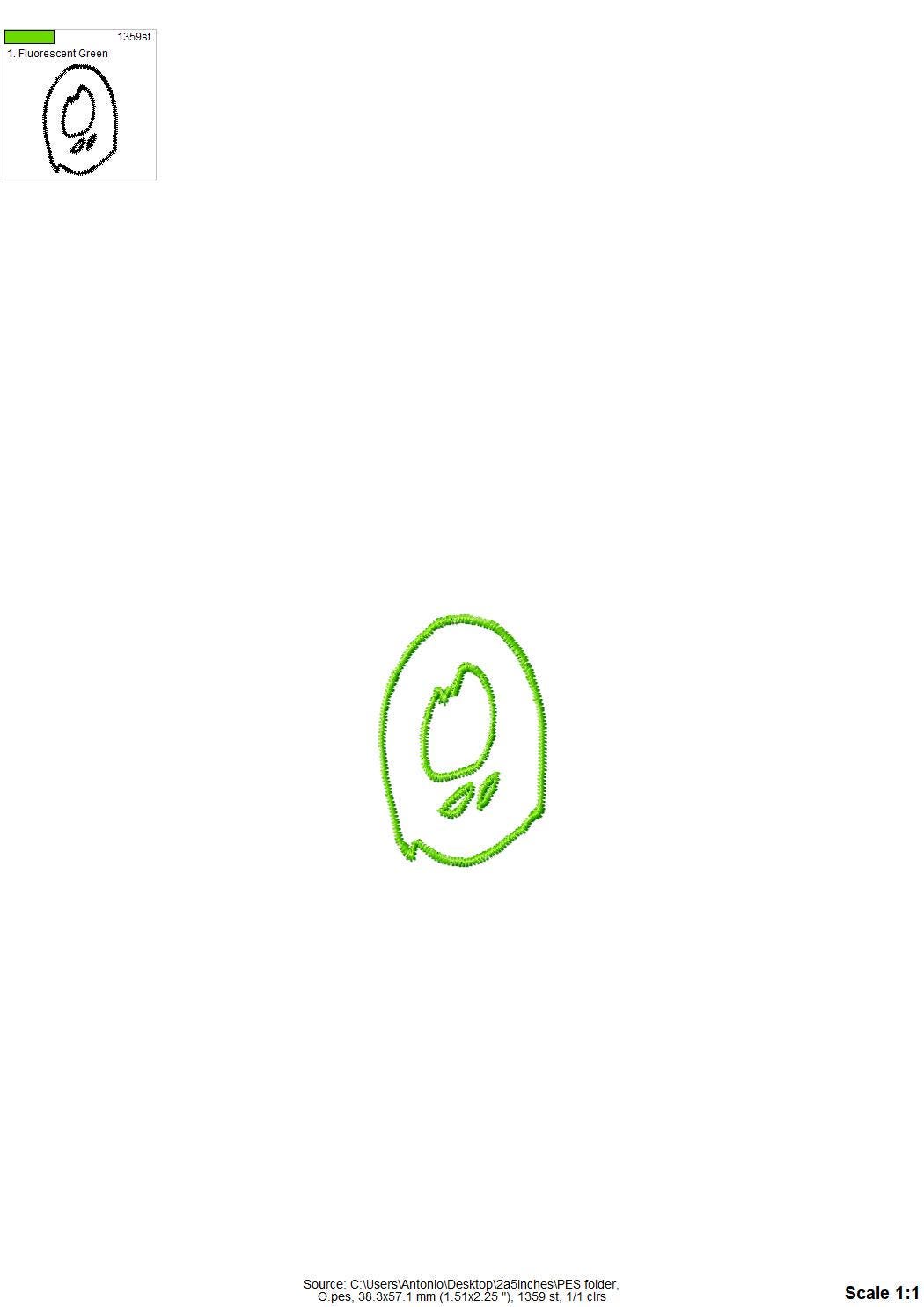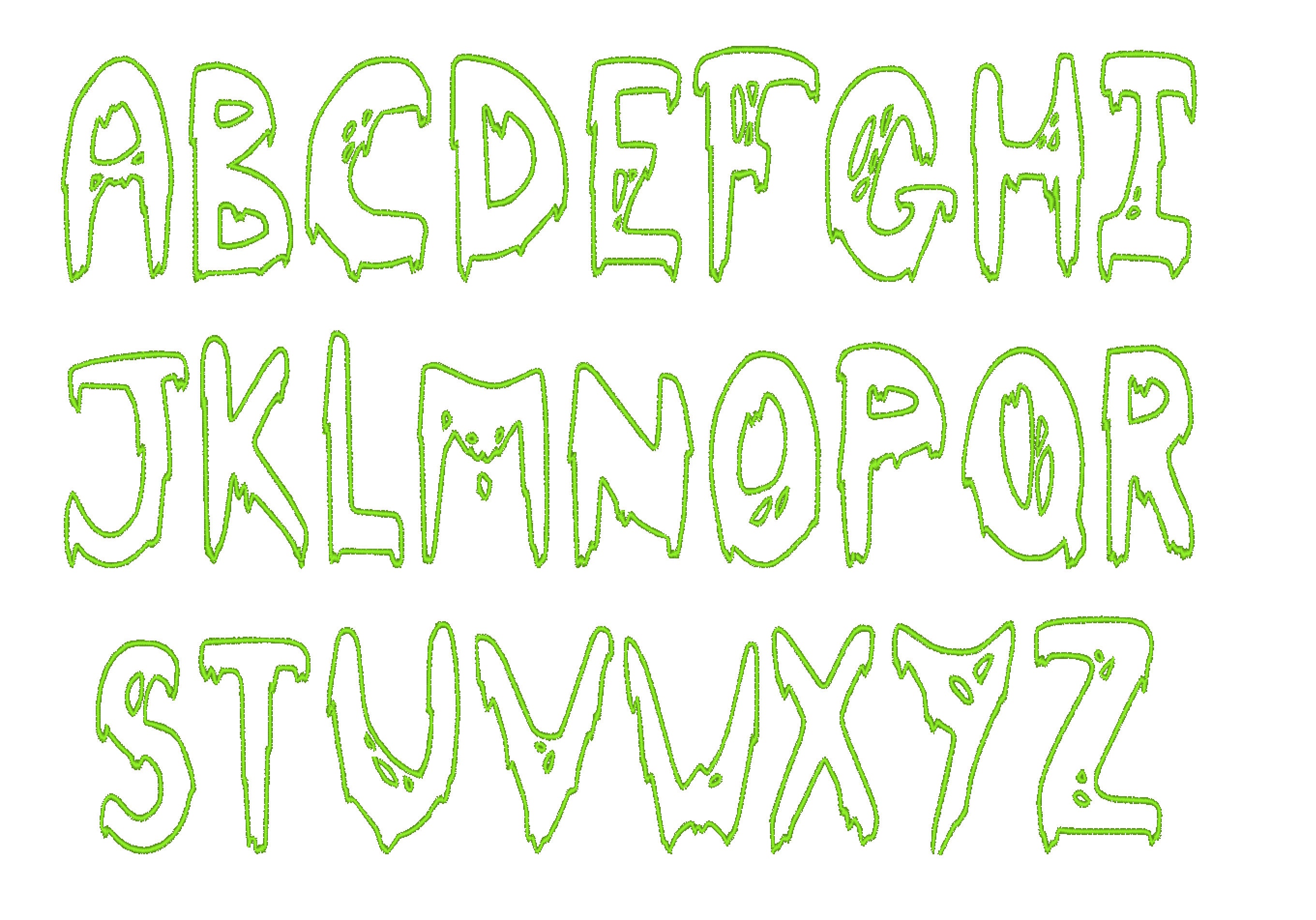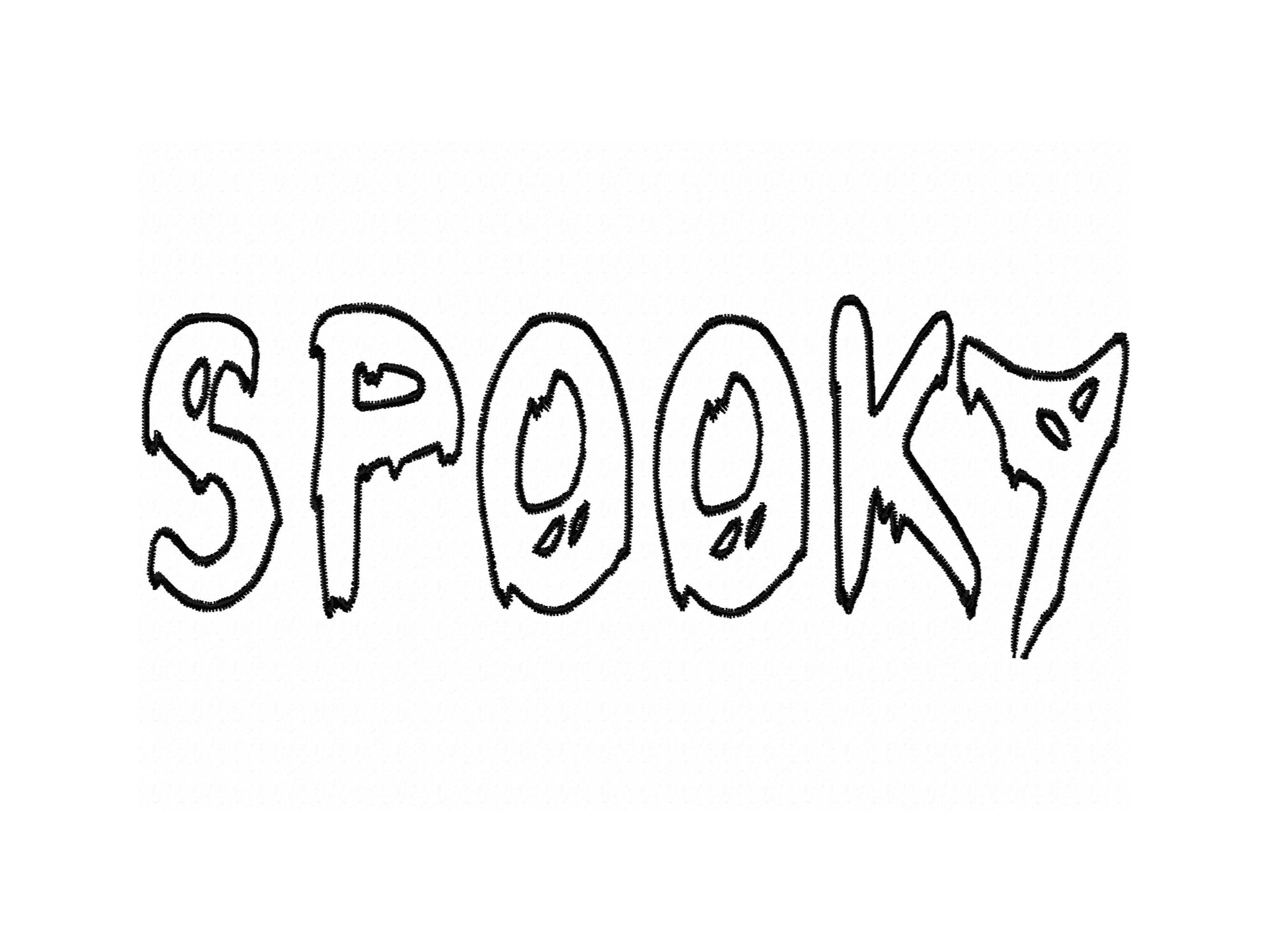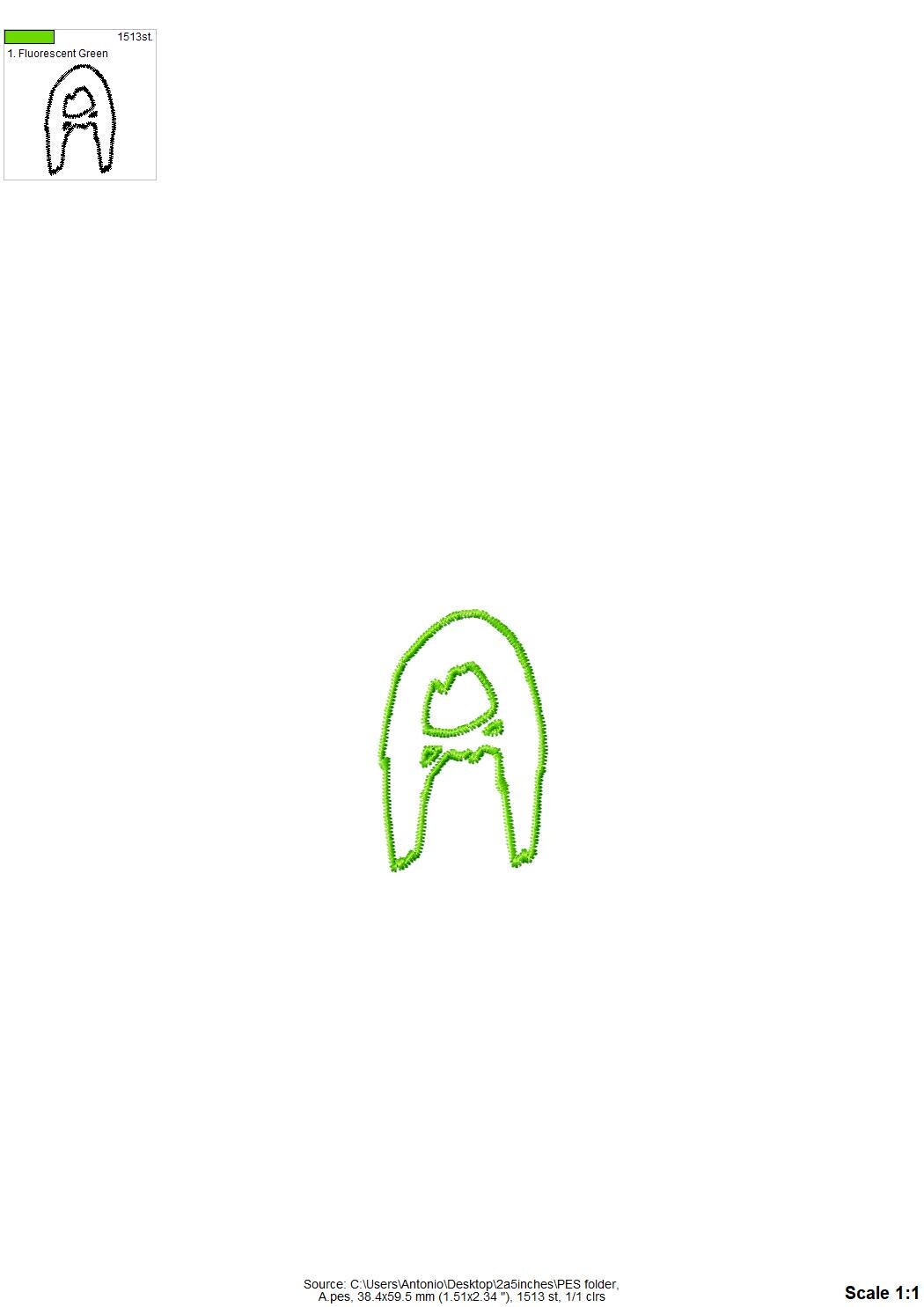
Spooky thin outline stitch Zombie FONT Alphabet letters machine embroidery designs sizes 1.4 up to 4.5 inches kids Halloween Monogram BX
This is a quick stitch outline font.
Entire alphabet uppercase letters A-Z.